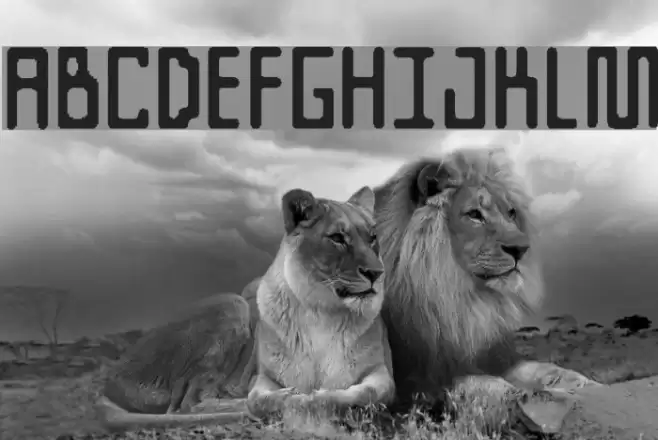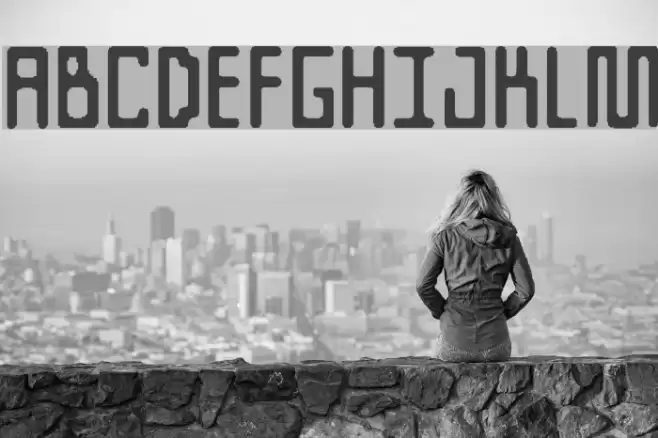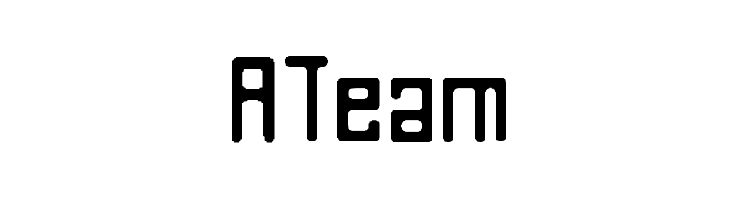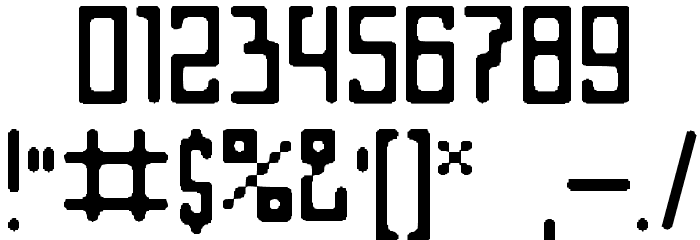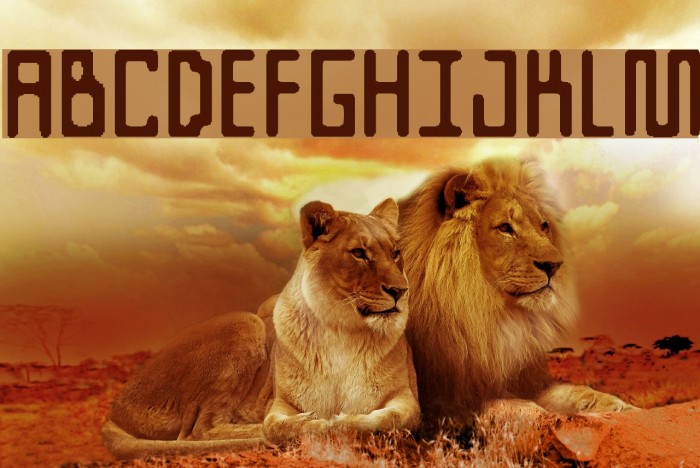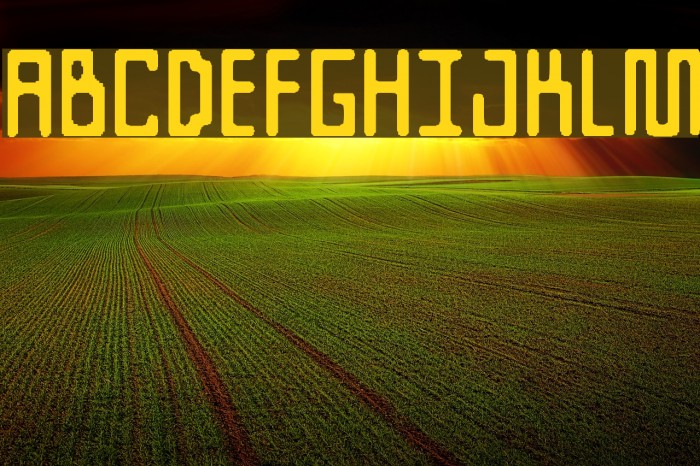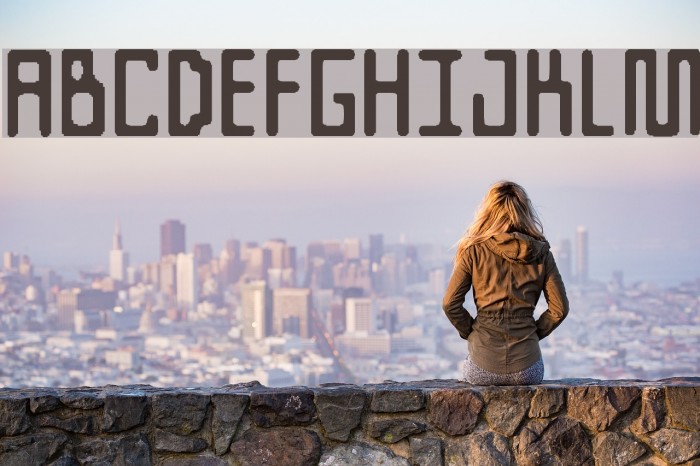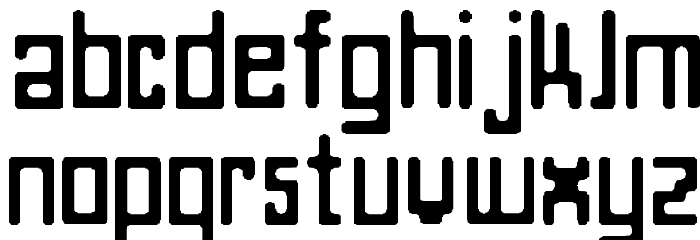
ATeam Font
ATeam Description
This font features a bold, geometric style with a distinctly modern and digital aesthetic. The characters are constructed with thick, uniform strokes that create a strong presence on the page. The uppercase and lowercase letters maintain a consistent width, contributing to a monospaced appearance. The numbers and special characters follow the same design principles, ensuring a cohesive look across all glyphs. The font's blocky, pixelated design makes it ideal for projects that require a tech-savvy or futuristic feel.
A bold, geometric font with a modern, digital aesthetic from Uncategorized fonts.
- Proposed Projects: Ideal for tech-related branding, digital art, video game interfaces, and futuristic designs.
- Use Case: Logos, Headlines, Digital interfaces